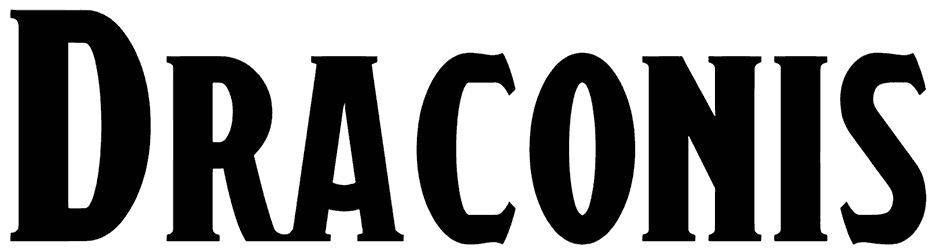
Draconis Font
What happens if you give a serif font retro styling? You end up with Draconis, a strong and bold font that would be the absolute choice for historic book covers, vintage car and motorcycle posters, and Movie Company branding.
Instead of lowercase, you get a smaller version of the uppercase in this collection, but this doesn’t end here; you also get four different styles for this typeface. So go on and check out RB before it gets too late.
Draconis is a bold, tall typeface based loosely on the title logos of Wizards of the Coast’s Dungeons and Dragons: Fifth Edition game line. Includes full alphabet, numerals, extended punctuation and Euro. Includes bold, italic, and bold-italic weights.